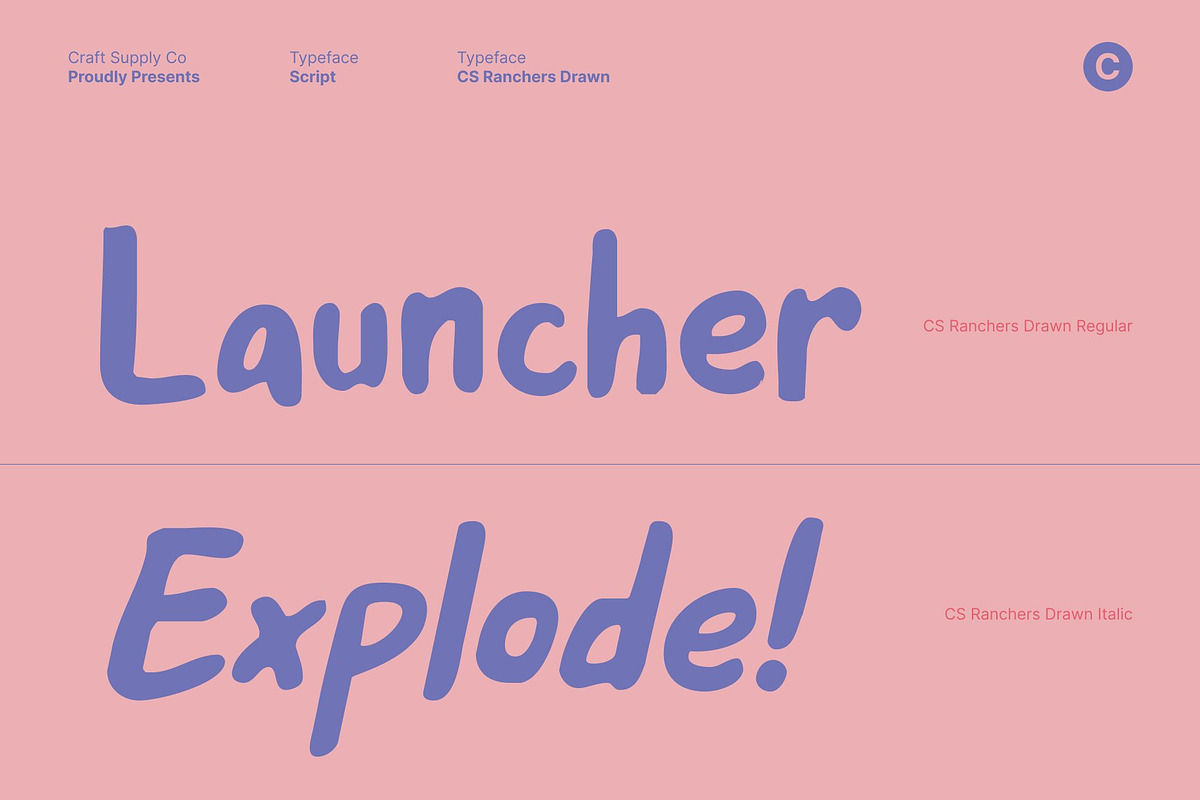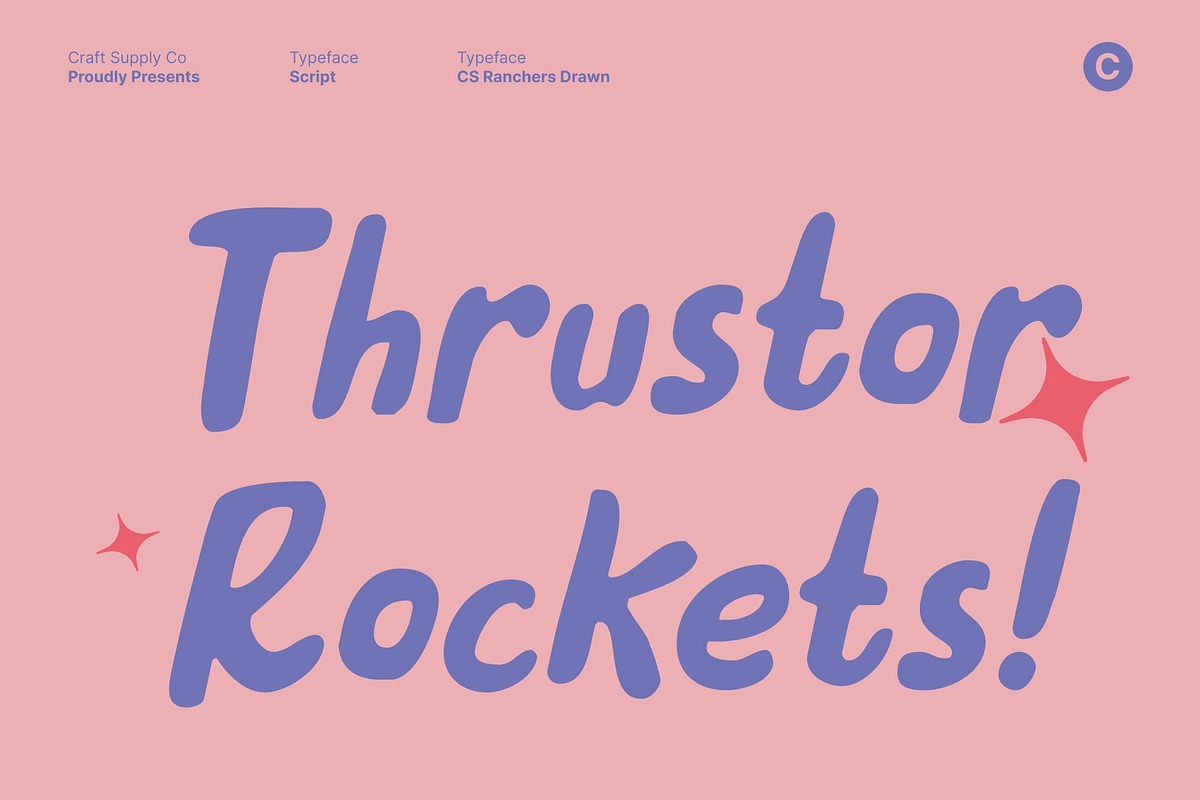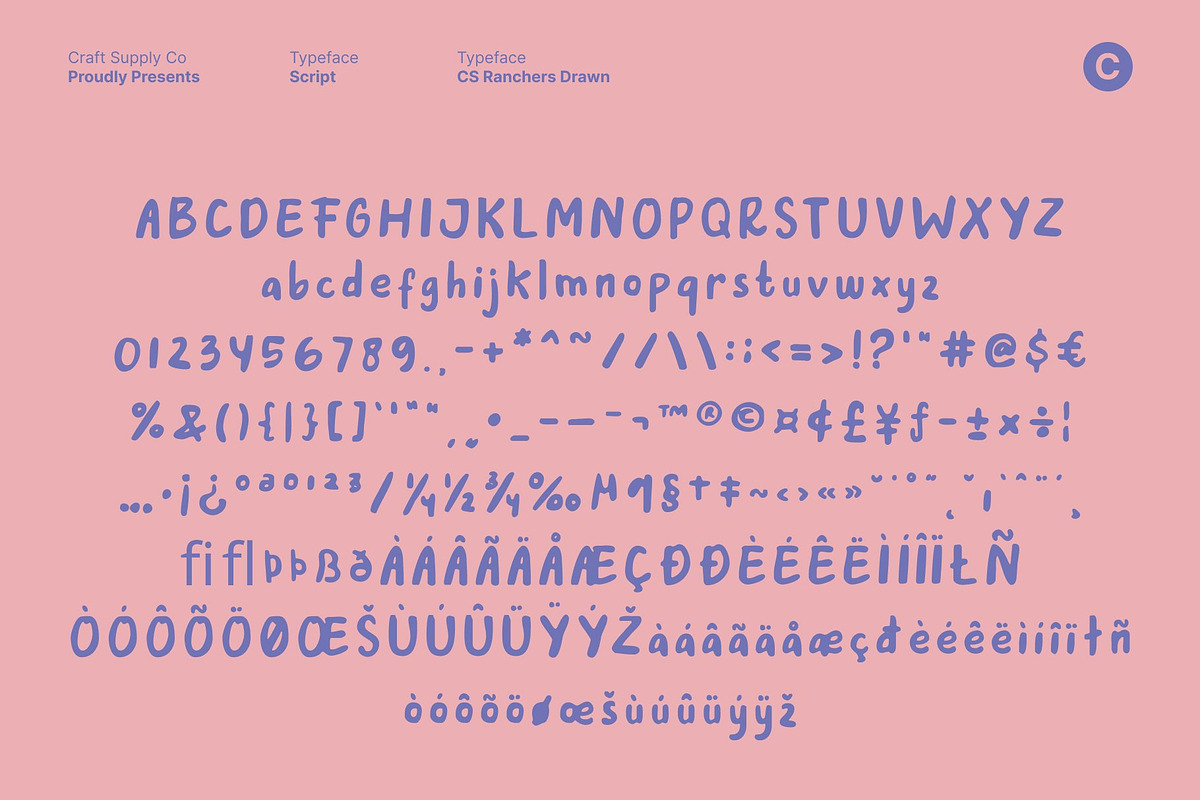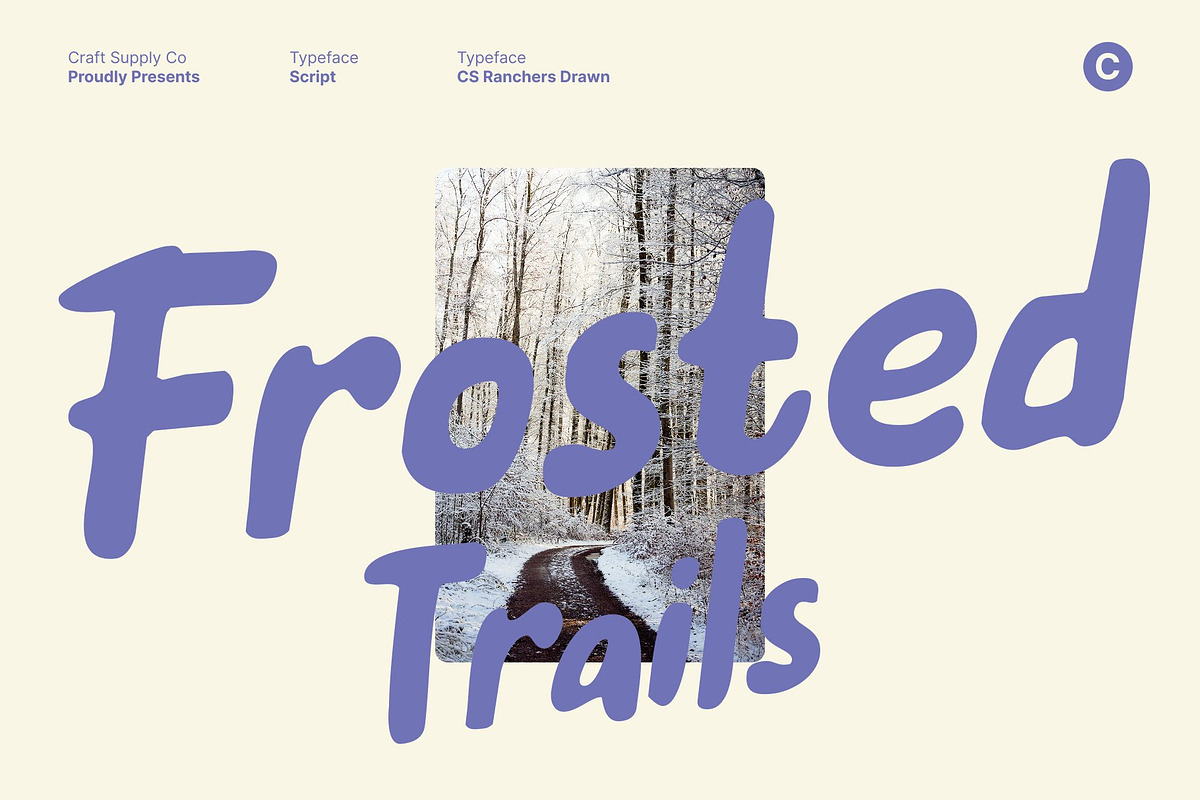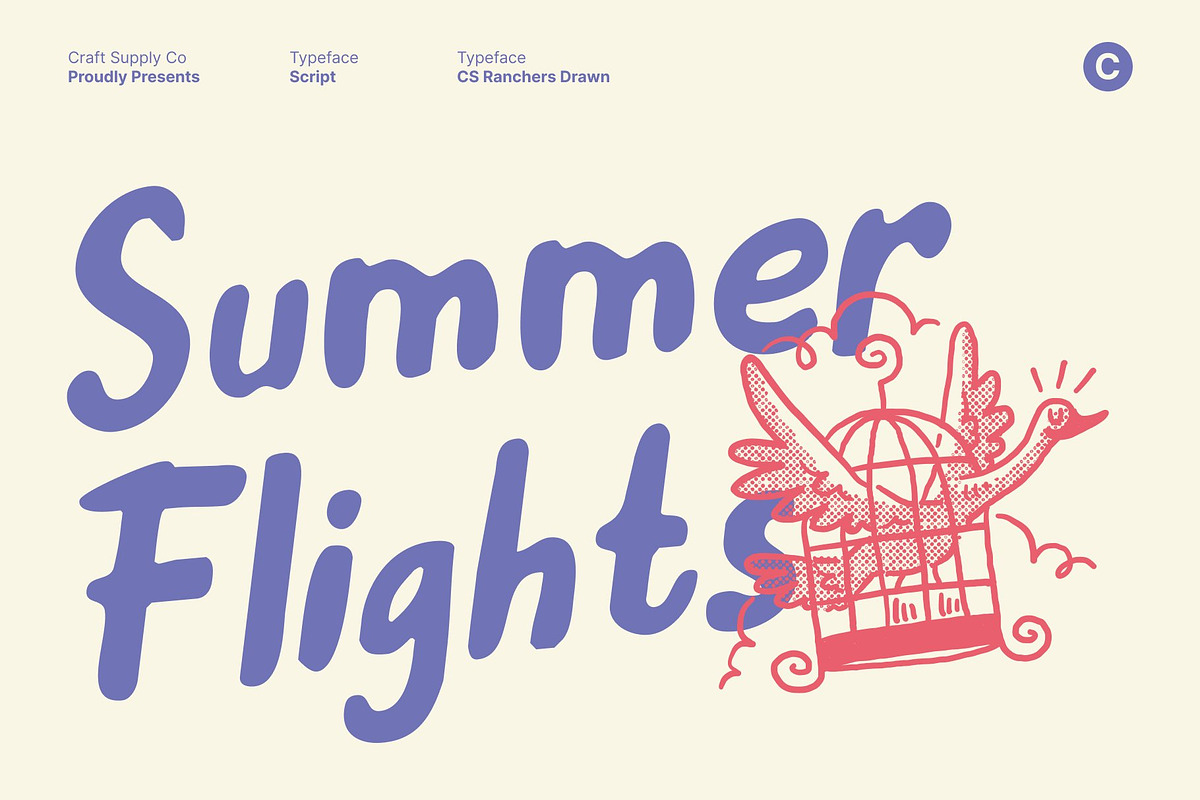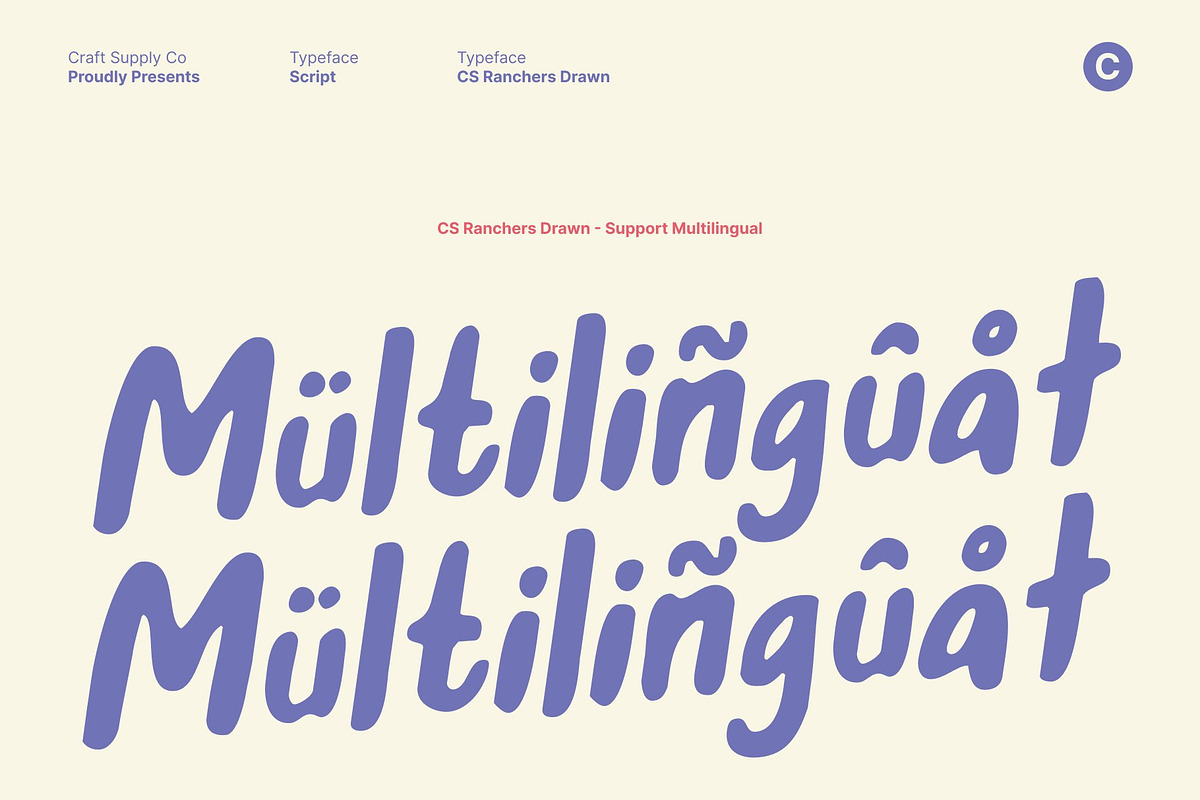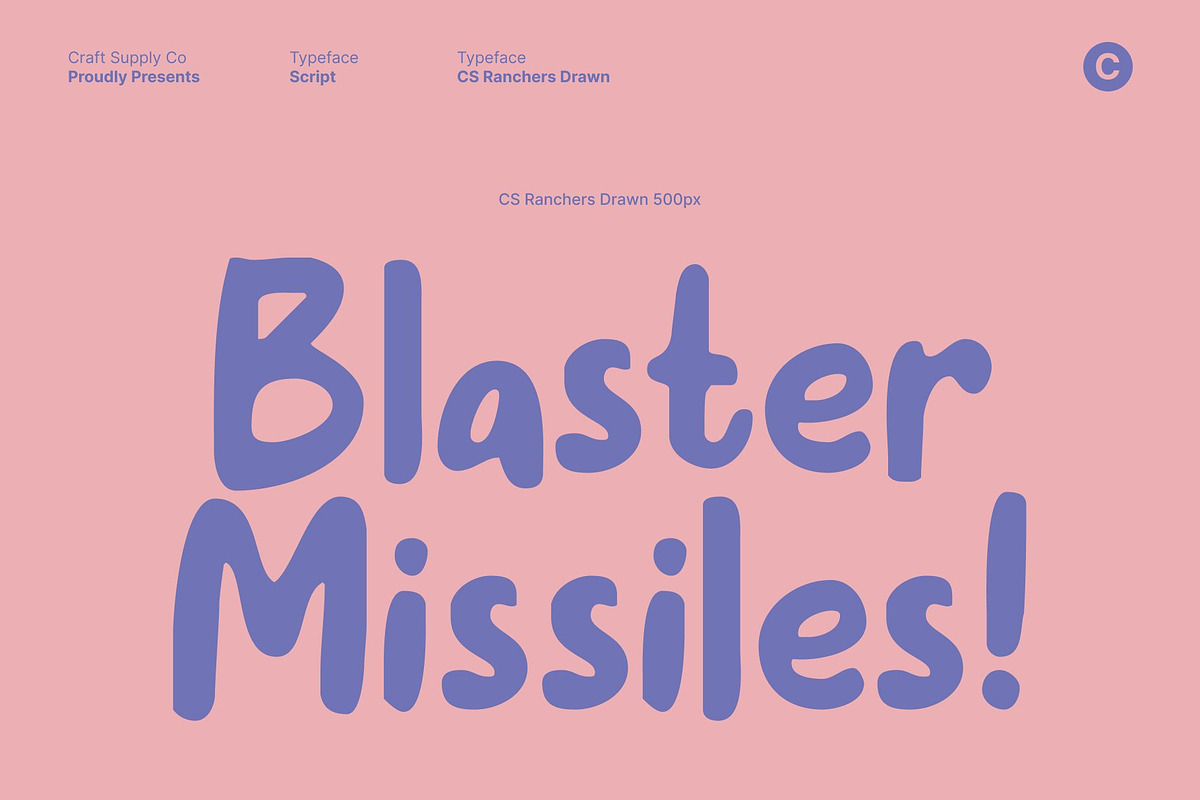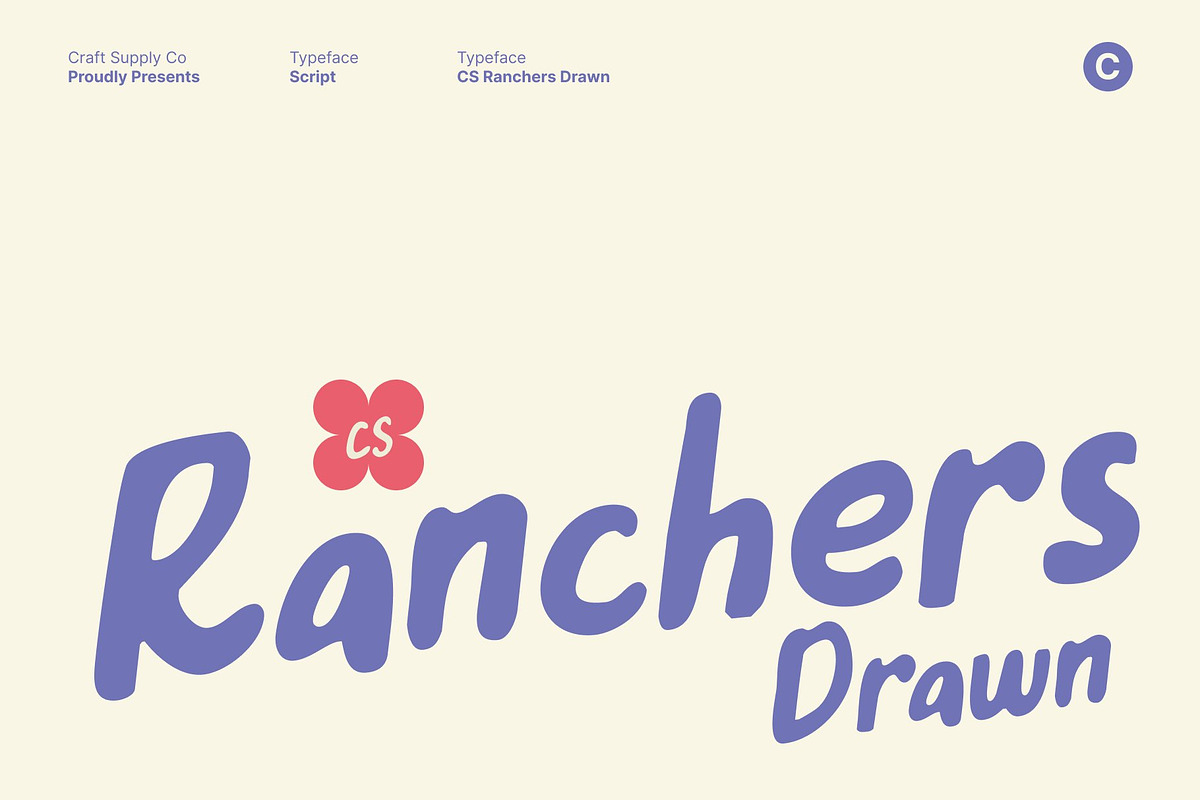
CS Ranchers Drawn
CS Ranchers Drawn – Expressive Brush Display with Natural Hand-Brushed Texture
Artistic Brush Strokes with Bold Modern Expression This is a brush display font crafted to capture the dynamic beauty of natural hand-brushed lettering. Its expressive strokes and textured edges radiate artistic energy, giving every composition a handcrafted yet contemporary feel. The font delivers bold impact while remaining approachable, making it perfect for designs that demand movement, creativity, and visual presence.
Authentic Hand-Brushed Texture with Organic Character The drawn brush details give each letter an organic, painterly quality, as if created with deliberate, confident strokes. This natural texture adds depth and tactile richness, enhancing the authenticity of the design. Despite its expressive form, the fluid brush construction maintains smooth readability and visual balance.
Expressive Power for Artistic and Creative Projects With its energetic rhythm and flowing shapes, this font is ideal for expressive headlines, statement titles, and dynamic layouts. It communicates creativity, passion, and modern artistry, helping designs stand out with a strong emotional and visual impact.
Perfect for Illustration, Branding, and Creative Lettering This font excels in illustrations, digital artwork, posters, branding, and hand-brushed logo designs. From artistic posters and expressive packaging to bold social media graphics, this font brings personality, vibrancy, and a professional handcrafted touch transforming text into a striking visual experience.
- CS Ranchers Drawn Regular
- CS Ranchers Drawn Italic